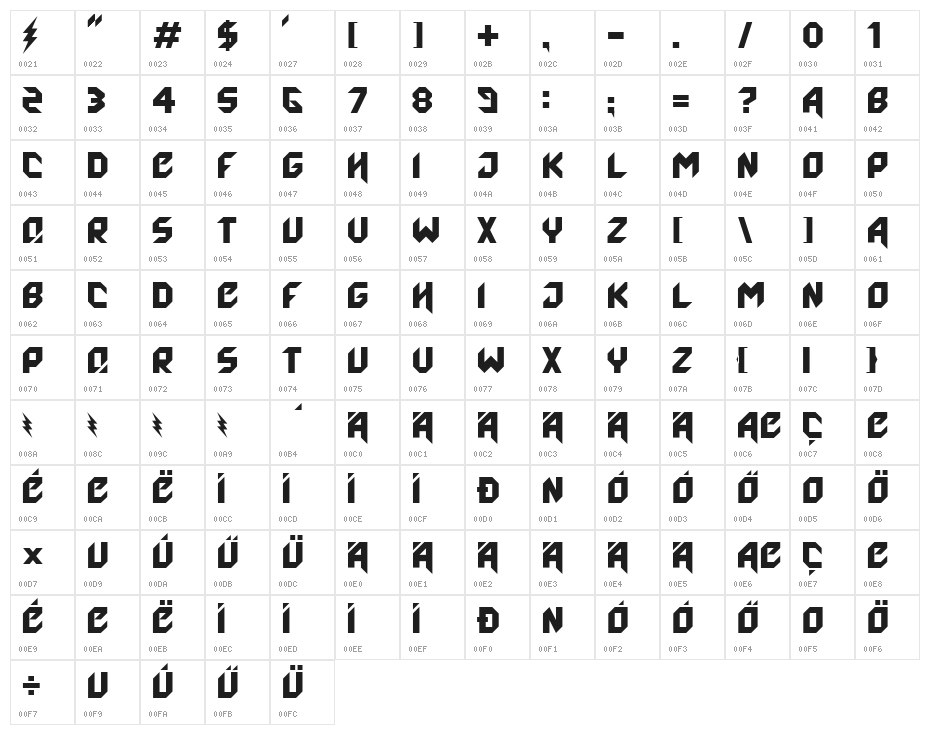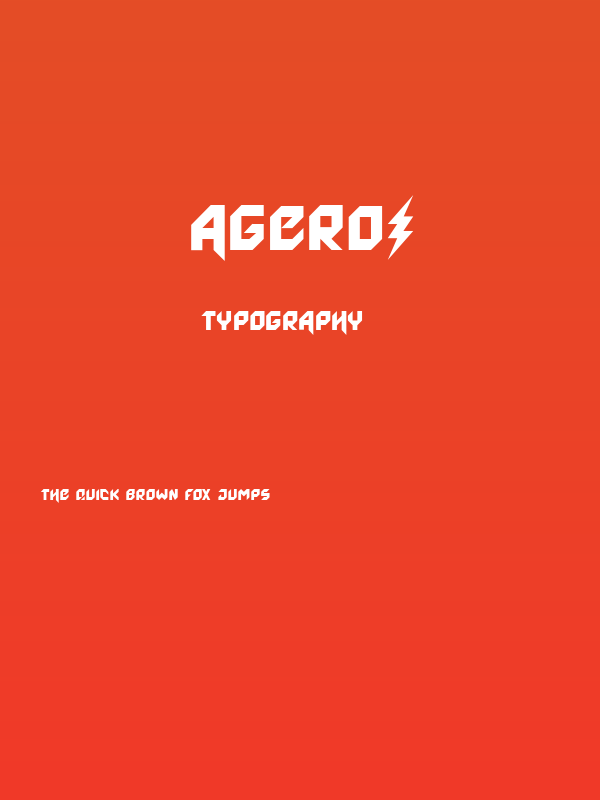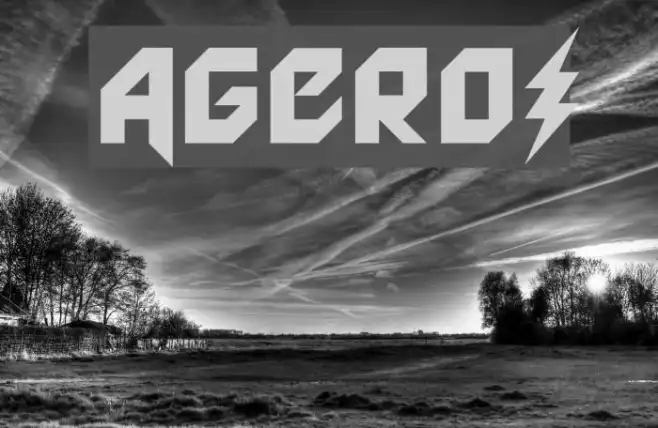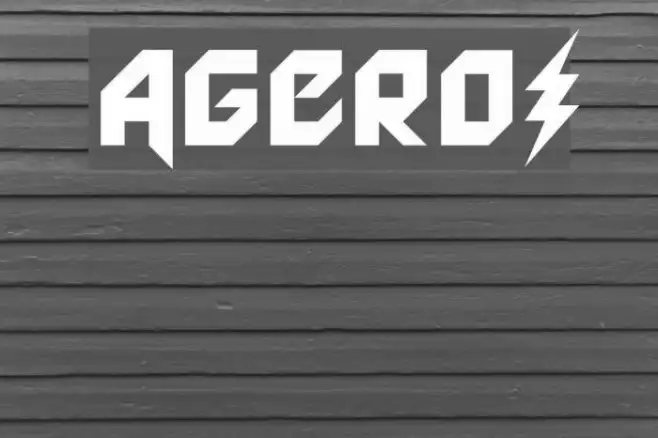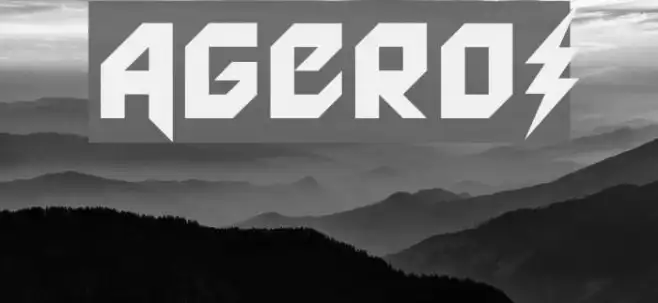
Agero! Font
Agero! Description
This font features a bold, geometric style with sharp angles and a futuristic aesthetic. The characters are constructed with a consistent thickness, creating a strong visual impact. The uppercase letters have a uniform height, while the numbers and special characters maintain the same boldness, ensuring a cohesive look. The angular design gives it a modern and edgy feel, making it suitable for projects that require a standout typeface. Its unique style is both eye-catching and versatile, allowing for creative applications in various design contexts.
| Proposed Projects | Ideal for branding, posters, video game graphics, and sci-fi themed designs. |